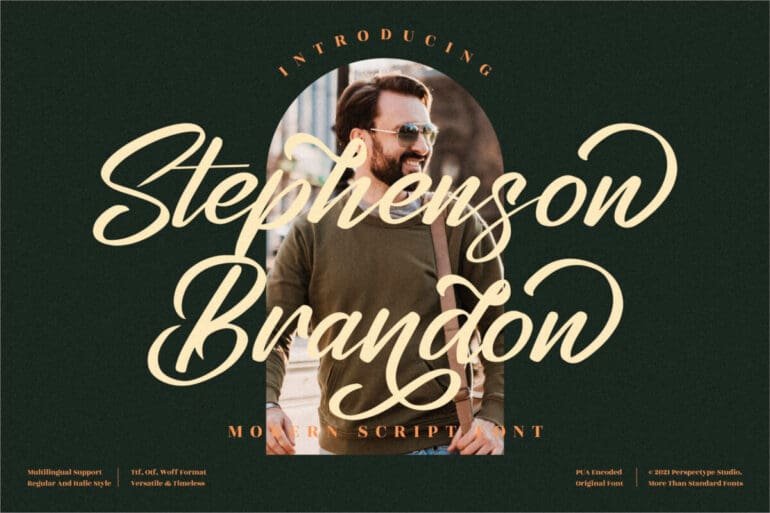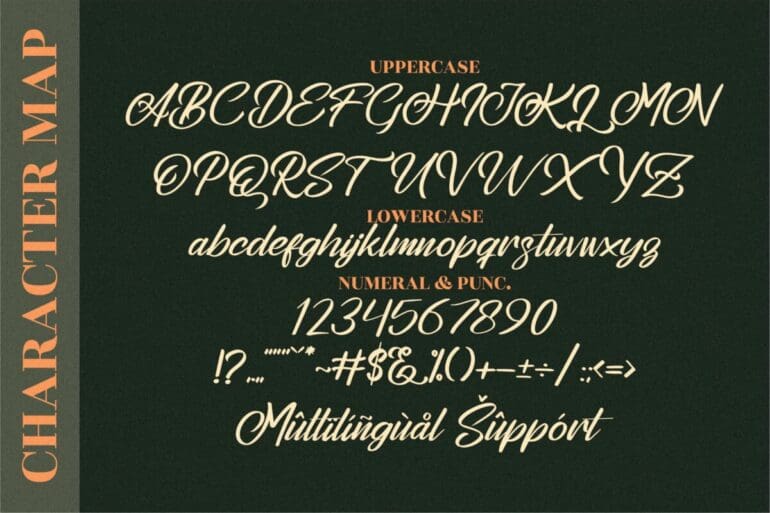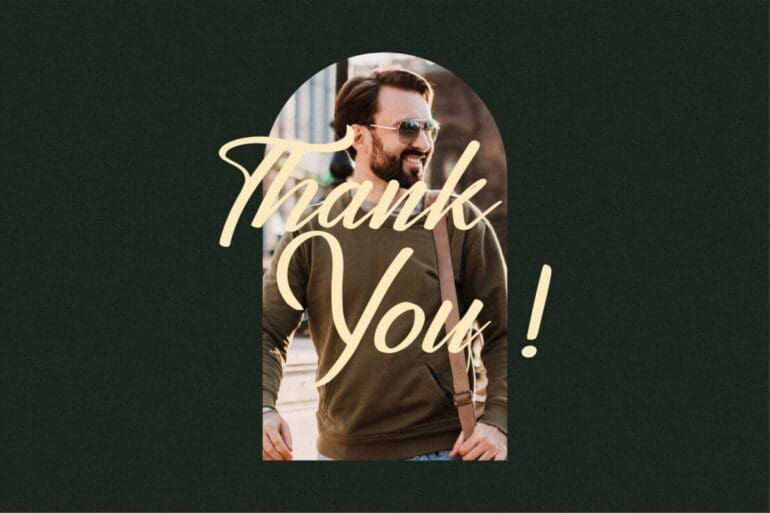
Stephenson Brandon Script Font
Stephenson Brandon is a cursive and relaxed Script Font. It has a casual, yet elegant touch. It can be used for various purposes such as wedding invitations, t-shirts, letterhead, signage, labels, news, badges and so much more.